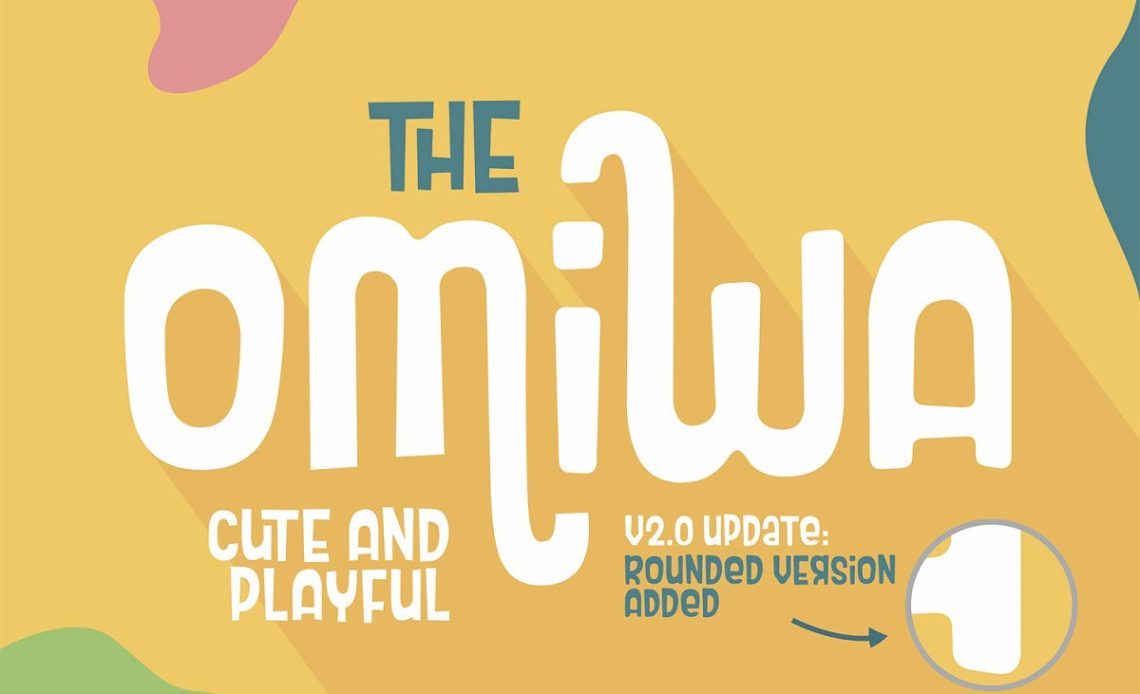
The Omiwa is a playful font with unique character that is perfect for all design purposes. With unique alternate characters you can combine it into awesome waves!
– This font is semi-ALL-Caps font, because some characters have lowercase (e, f, g, i, j, n, r).
– The characters with Stylistic Alternates : A, H, K, M, N, R, U, V, W, X, Y
V2.0 updates:
– kerns update
– added Rounded Version